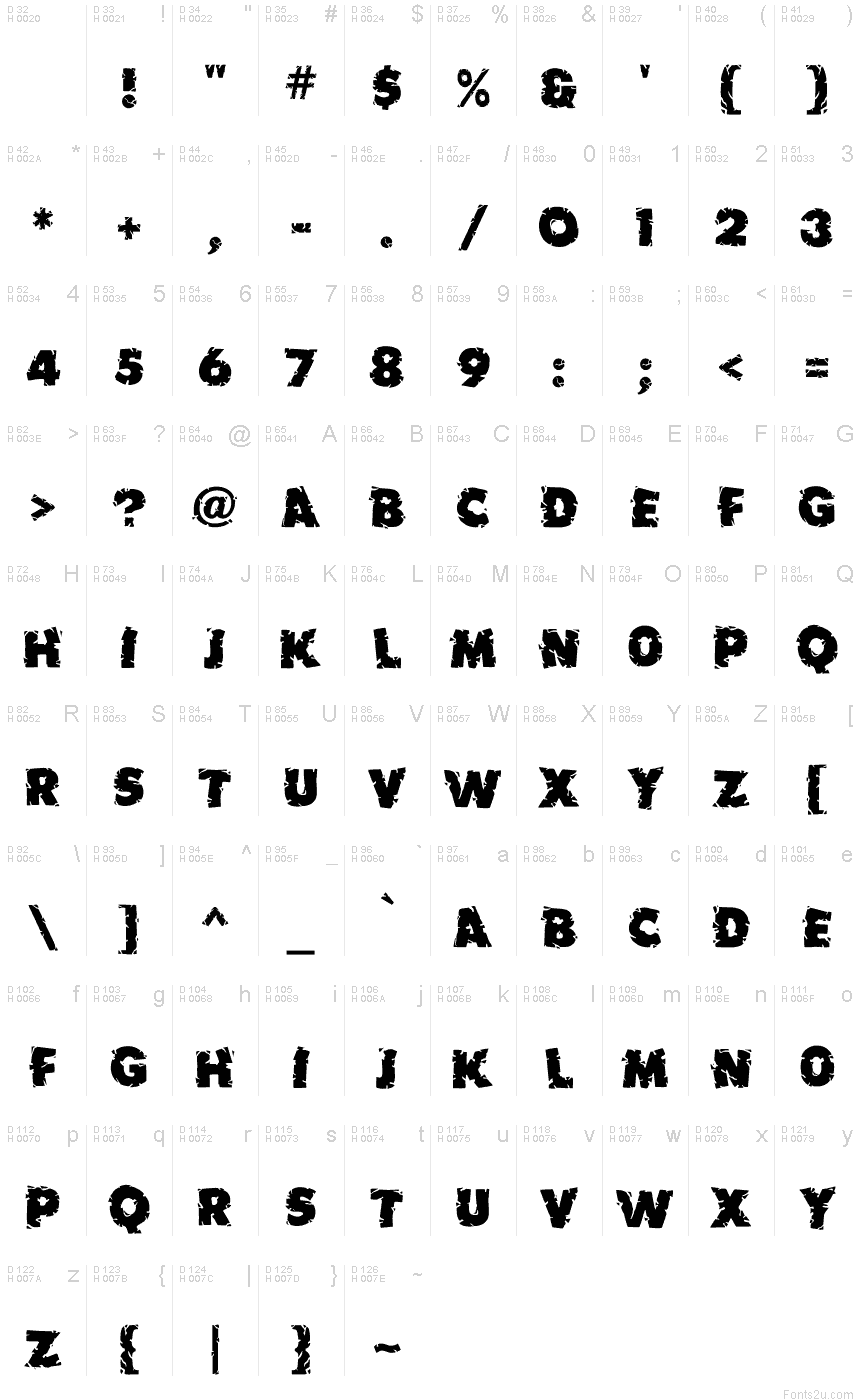
Earthquake MF
Earthquake MF font by Richard William Mueller is a free distorted display typeface that looks like it’s been shaken, cracked, and splattered across the page. Thick, blocky letters are chewed up at the edges, with rough, inky fragments that feel loud and unstable, like fresh rubble. There’s a strong, chunky weight underneath the chaos, so even with all the grunge and distortion, your words still hit hard and stay readable at large sizes.
Using Earthquake MF, you can instantly push posters, horror titles, disaster movie graphics, Halloween flyers, extreme sports branding, and game logos into full-on chaos mode. This free font works best when you let it shout—use it big for headlines and pair it with a clean, neutral sans serif for supporting text so the wild texture has room to breathe.